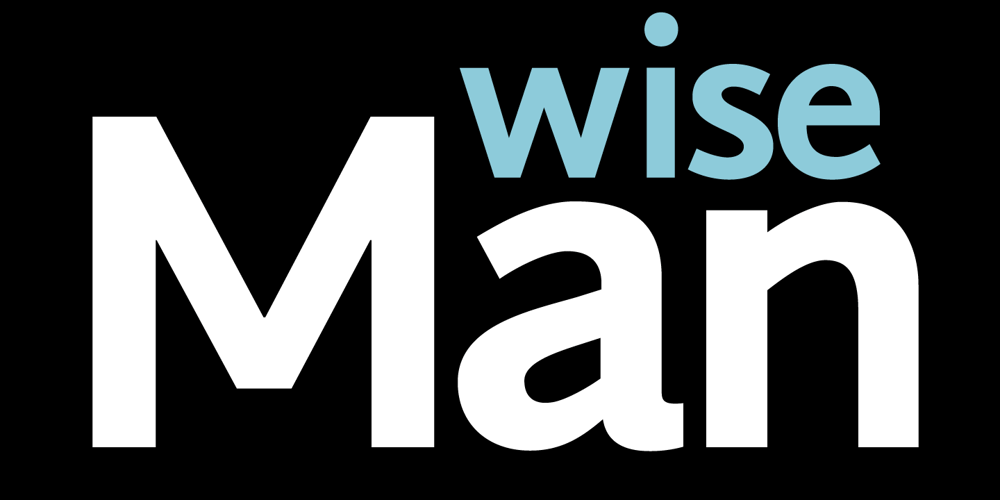
PF Diplomat Sans Font Family was designed by Panos Vassiliou and published by Parachute. PF Diplomat Sans contains 6 styles and family package options. A clean humanistic sans-serif typeface which complements its serif version Diplomat Serif. It has preserved several of its original characteristics and comes complete with true-italics with a distinct flowing structure. Supports Latin and Greek.